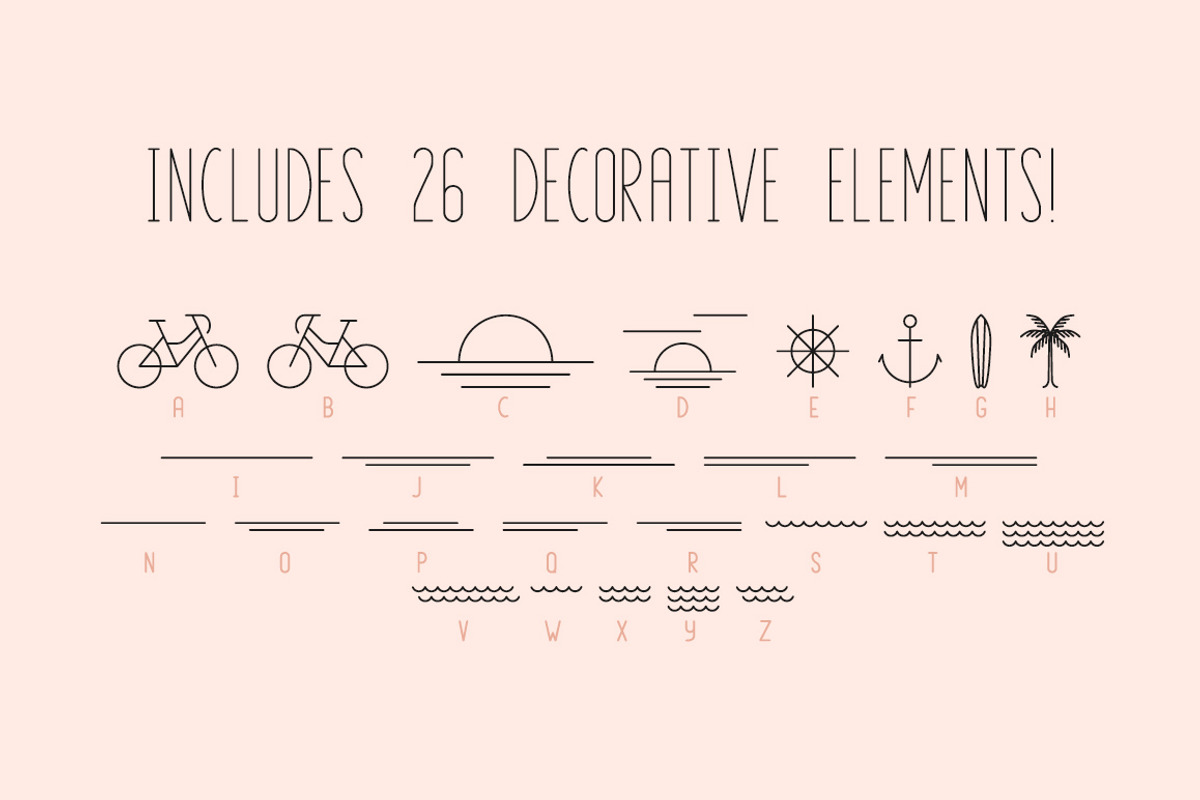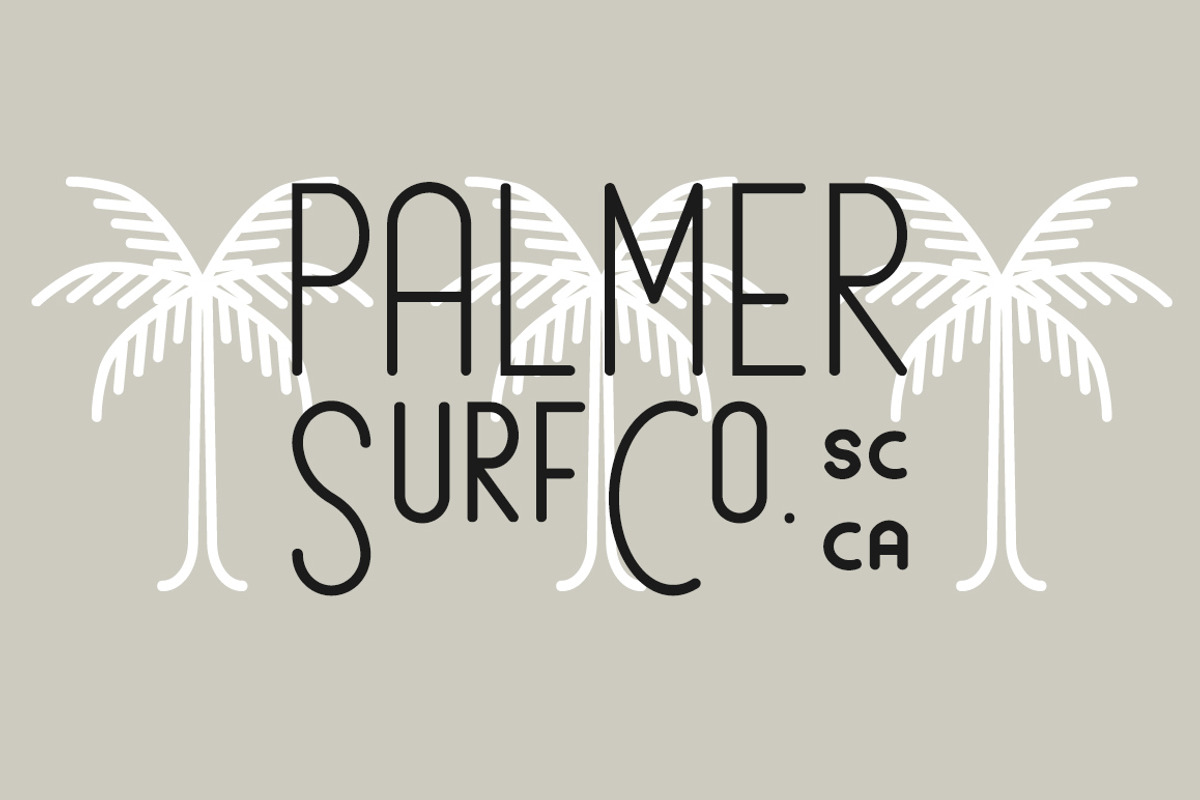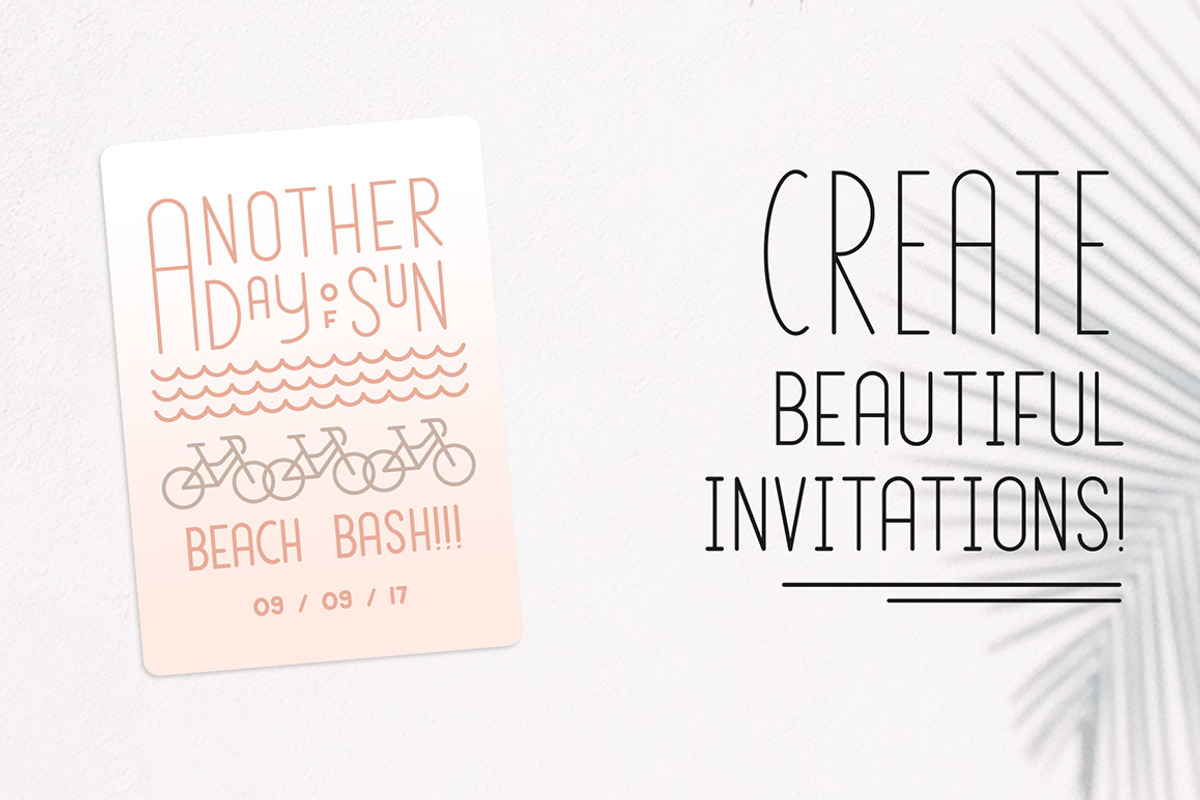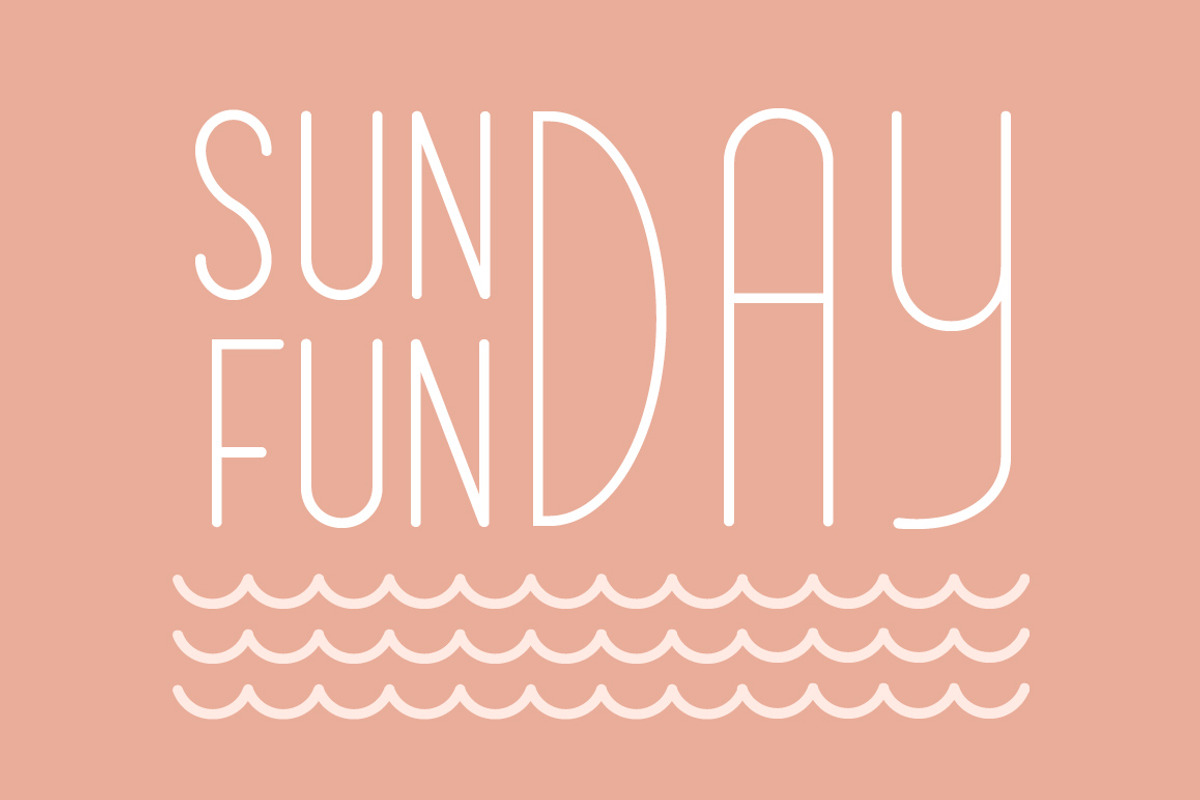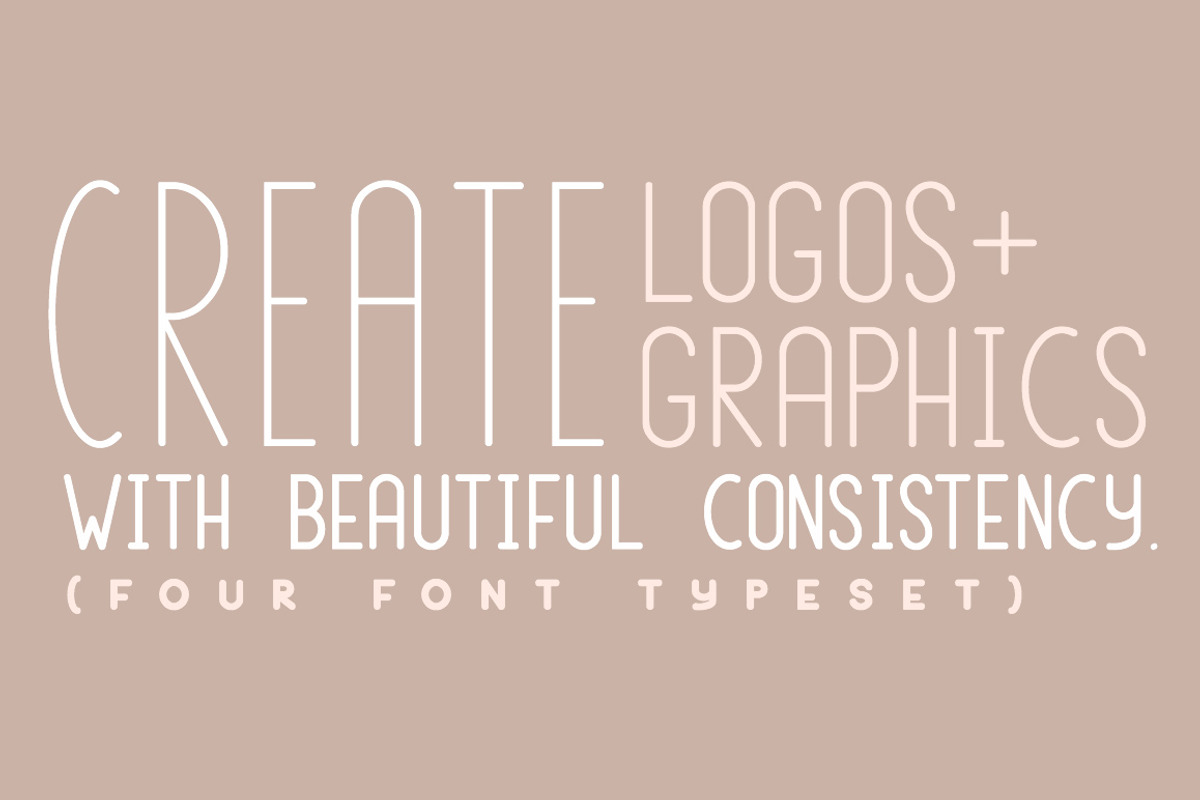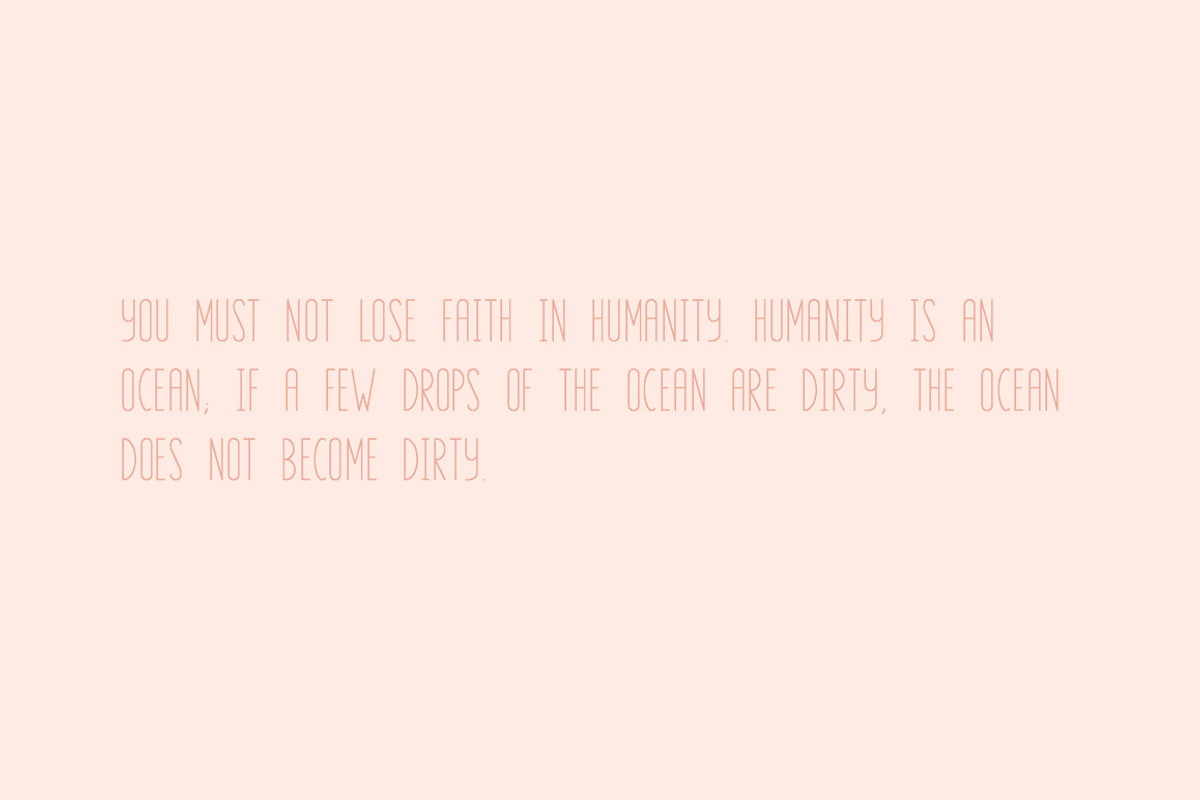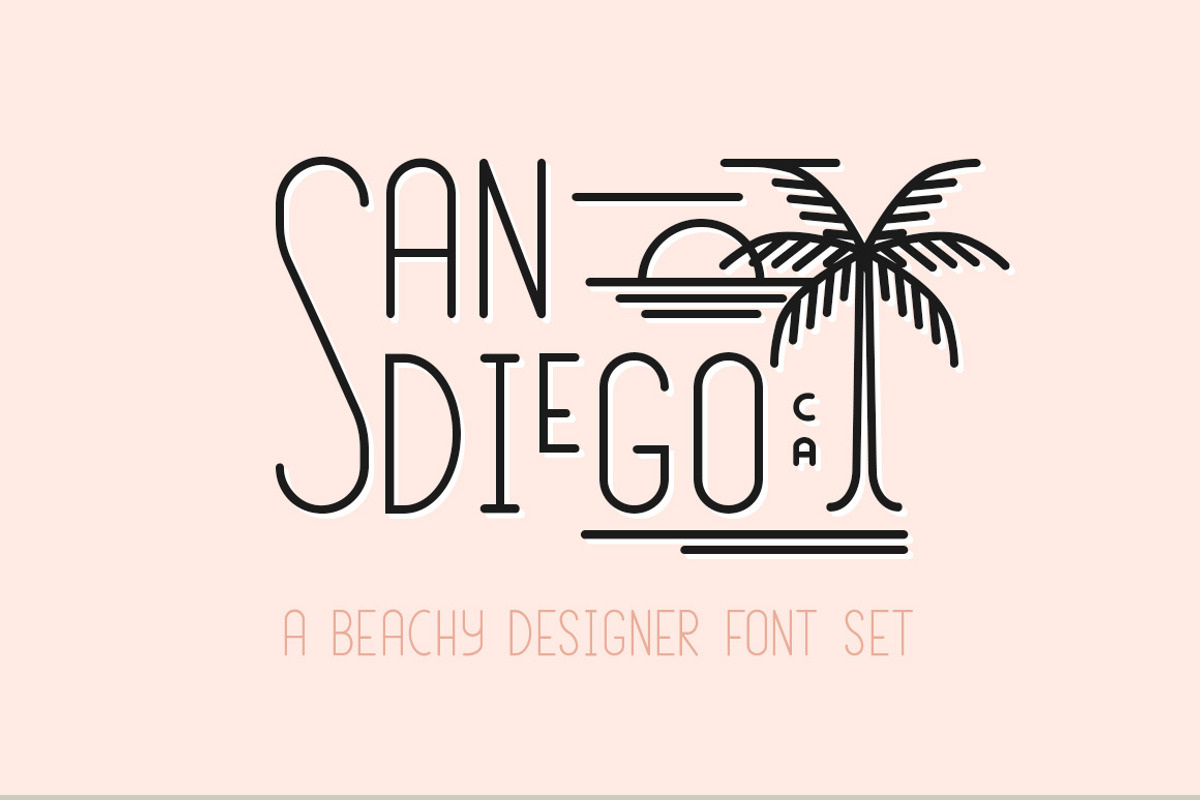
San Diego | Beach Font Set
San Diego is a four-font typeset that is made specifically to make a designer's job a little easier. It has a beautiful vintage style that makes retro line-style logos a breeze to make! It's also perfect for invitations, signage, and so much more.
There are four fonts in four different sizes (tall, medium, small, and extra small) that work together to create a cool vintage logo look.
The best part? Each font size has the same stroke width. That way, you don't have to worry about varying letter thickness messing with the consistency of your design.
Even the decorative elements come in two sizes (tall and medium) to accompany the main letter sizes.
The line heights are currently meant to make switching letters within a single typed word easy. You can observe this in the video. The extra-small size requires a little more line height adjustment, as can be seen.
San Diego Tall – a sleek and slender vintage style font
San Diego Medium – a font that is approximately half the size of the tall version, making word/letter contrast simple
San Diego Small – a font that is approximately half the size of the medium version, accompanying it beautifully with accent letters
San Diego Extra Small – a font that is approximately half the size of the small version. This one is great for more decorative type, like state abbreviations, years of establishment, etc.
San Diego Decorative Tall – 26 awesome decorative elements that correspond with the tall size font
San Diego Decorative Medium – 26 awesome decorative elements that correspond with the medium size font